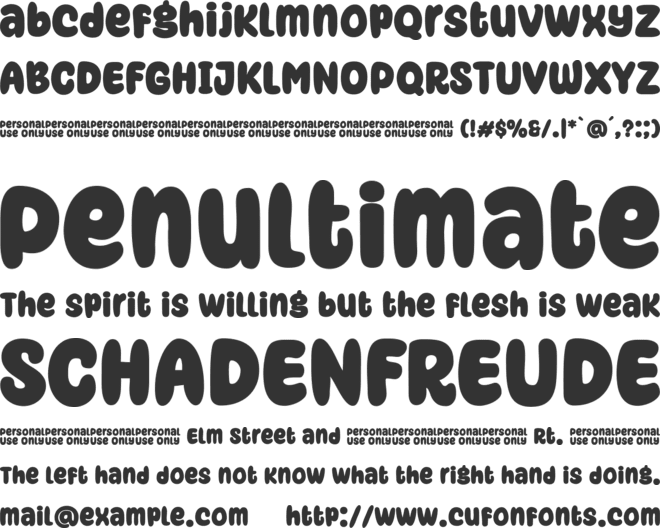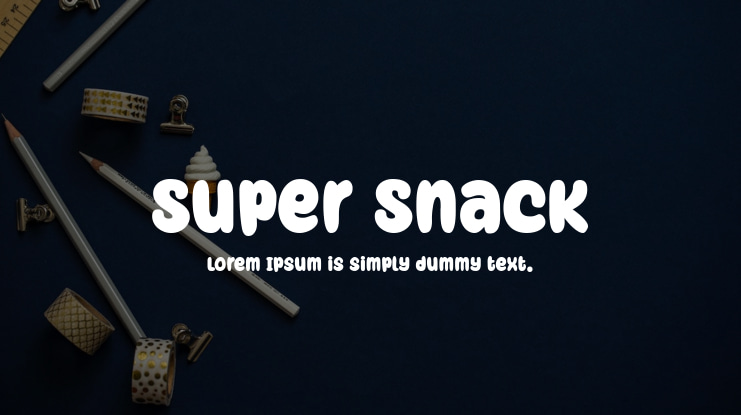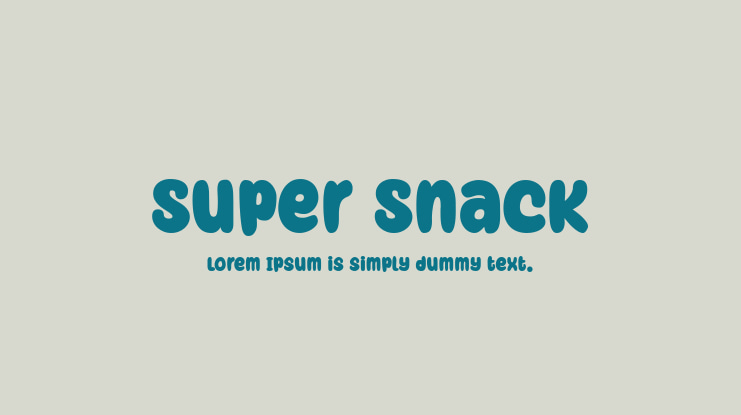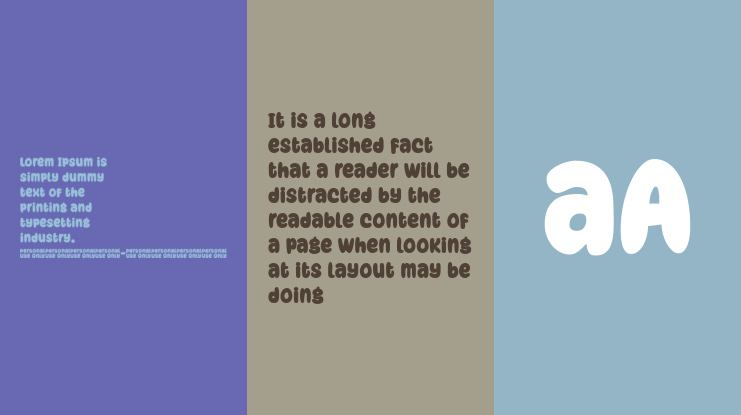
Super Snack Font
Super Snack is a fun, cartoon, and simple font that is perfect for childrens books, cartoons, and other playful designs. The letters are all rounded and have a slight bounce to them, which gives them a sense of movement and energy.